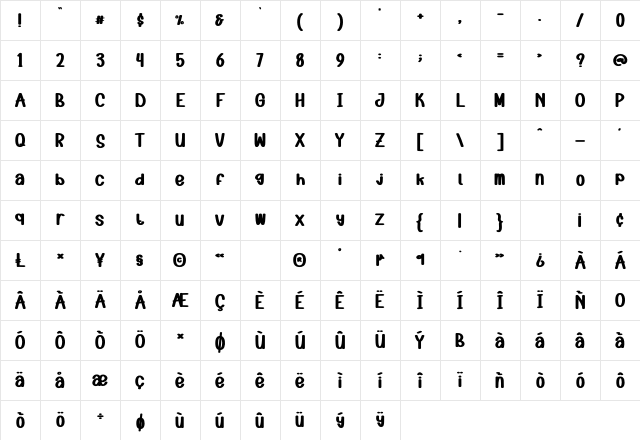
Candy Bulky Regular Free Font
Candy Bulky Regular
Design Context for Candy Bulky
Candy Bulky is a composed and adaptable typeface that performs quietly and consistently across a wide range of design contexts.